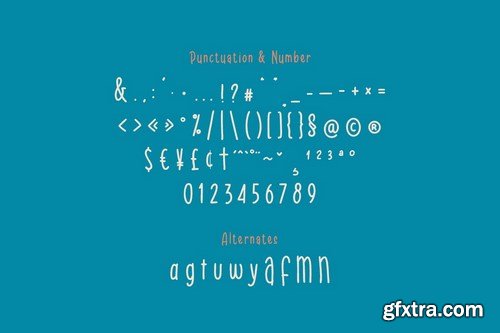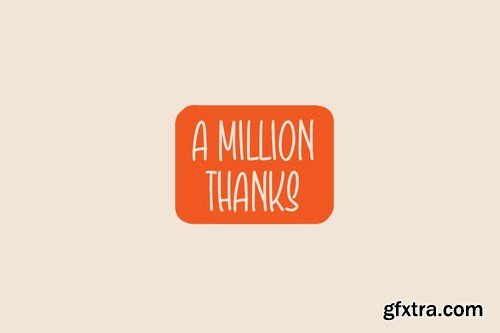
Admiral Günther is a playful monoline font that is suitable for design projects; playful theme, logo, branding, poster, quotes, display, beautiful stationary art, eye-catching social media posts, and cute greeting cards, and any other designs.